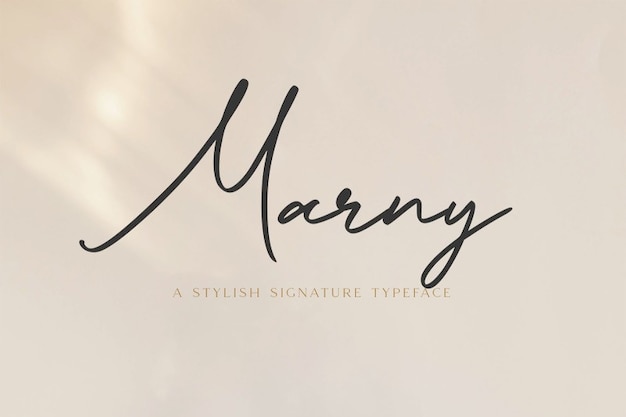
Marny Font
It exudes style and elegance with its fancy, handwritten strokes. This font is like a personalized signature, adding a touch of class to your designs. Whether you're creating logos, invitations, or anything that demands sophistication, "Marny" effortlessly combines style and handwritten finesse.